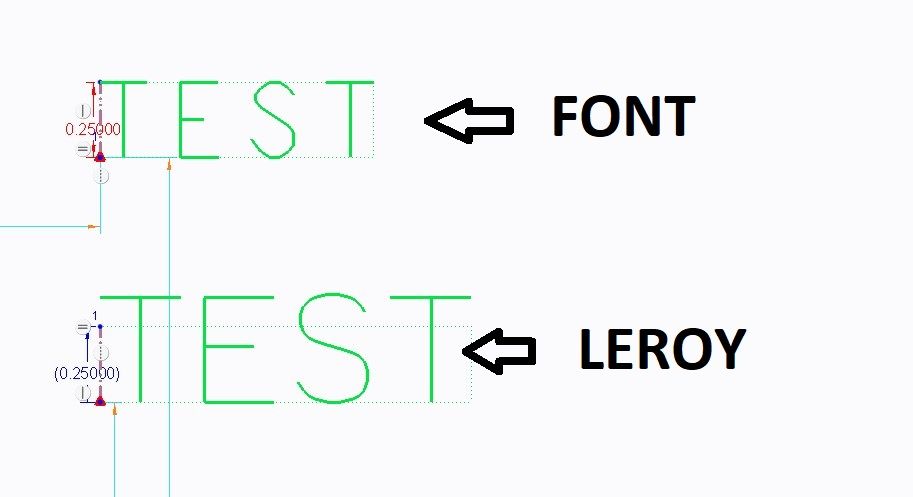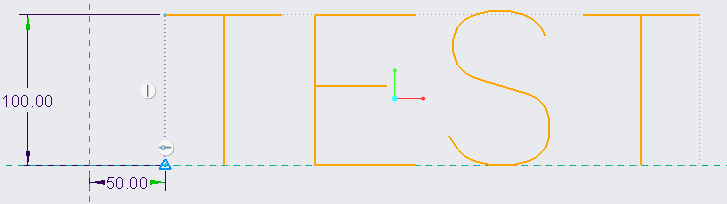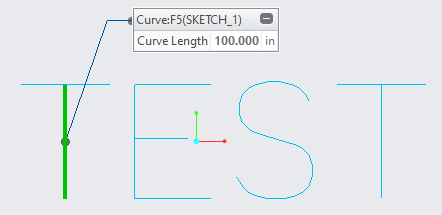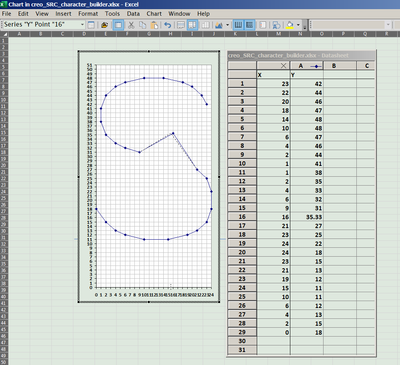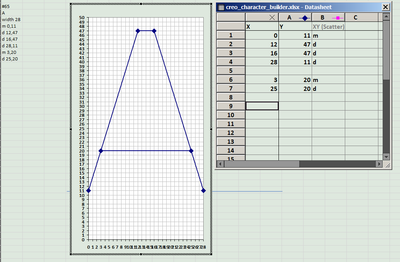
A handful of years have gone by since I asked the question on whether it was possible to either generate your own 2D text style font or import this from an outside source.
By any chance has this become easier to do?
My goal is to have a set of text characters that are matched to the text font used with our hand stamps. The 3D characters do not machine correctly.
I did a lengthy Google search but couldn't find any solution.
Martin: Thank you, things are getting clearer through your explanations.
There are a couple points I'd like to discuss.
Please explain why Leroy characters are larger than you expect. I do not understand your problem.
The scale with Leroy is larger than the specified size. I'll show an example between "font" and "leroy":
Notice how "font" stays true to the text height. Conversely "leroy" is larger scaled. What I'd like to find out is whether it is possible to alter a setting to proportionally bring the text to the correct height. I see that the height in the src header is 63 which is the max. The width is specified at 36, but also there is an ICS of 1 and fixed width of 1 which likely means the individual widths take over. Would it be possible to make a universal height change to all text characters?
Another thing that I don't grasp.
The main problem when editing a src file is that PTC does not provide an application that would allow you to draw the shape of the character and then convert it to M and D commands. You have to print a raster on paper and draw the shape of the character in it.
Are you talking about printing off characters and reviewing against needed shapes or printing off a grid to help develop the M and D strokes?
Q: Are you talking about printing off characters and reviewing against needed shapes or printing off a grid to help develop the M and D strokes?
A: I mean printing off a grid to help develop the M and D strokes.
Problem: The scale with Leroy is larger than the specified size.
The result of the examination: It is caused by bug in leroy.src.
"I"
width 16
m 8,47
d 8,11
Definition of the above character ends at 47.
base_offset + spec_height must be 47 ... therefore I set spec_height to 36
base_offset + spec_height + ascender must be 63 ... therefore I set ascender to 16
I compiled modified font and created new Sketch feature in new part and result is OK.]
I looked at the Install and Administrator PDF for version 7 (which we are using), it is evident that the structure for generating your own text fonts has not changed. This leads me down a little different road.
Based on how hard it would be to make an entire set of text by hand I would instead prefer to copy the Leroy text font for a different text font file. I would like to
1) Change a couple text characters such as the "1" which shows up as "I".
2) Change the scale as I need to multiply the size I want by .8 to get accurate height.
3) Change the spacing.
4) Save this file and use it as my default
I am a little confused as to how the change order would work. Would I:
1) Copy the .src and .fnt file and rename them, or would there be more files that would need to be copied?
2) Decompile the existing new file using the terminal script
3) Change the .src file
a) modify text such as the "1" using M and D moves.
b) modify the text height universally from somewhere?
c) modify the text spacing universally from somewhere?
4) Compile the new file using a terminal script.
Am I anywhere close with this? Could someone help fill in what I don't have or have incorrect?
In my Google search I did find a thread related to Creo version 5. In this thread there was I believe a compile terminal text. In the example given it gave:
set COMPILE_FONT_PMT=36
compile_font.exe isofont.src isofont.fnt
I tried this for my own generated text font name which I called "stamprite". Before doing the script I copied the Leroy .fnt, .src and .ndx files and renamed them to stamprite.
I entered the "set COMPILE_FONT_PMT=36" line 1st and it entered without feedback.
Next I entered "compile_font.exe stamprite.src stamprite.fnt and got back the following message
I imagine this isn't good but don't know what it means in terms of communicating a change through.
I haven't really made any changes (as my intention will be) as of yet.
Creo did at least read in the stamprite font type.
I don't know how to make the intended changes to the src and have it carry through.
Tbraxton: Can you use single line thickness fonts as TTF?
We are looking to use one of the few single line fonts for our default.
Leroy is not perfect but it has the most curvature.